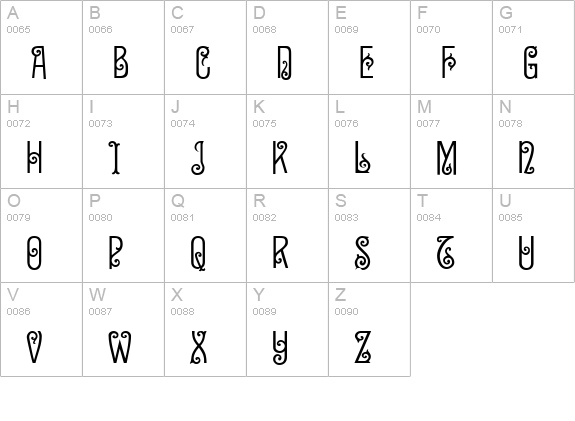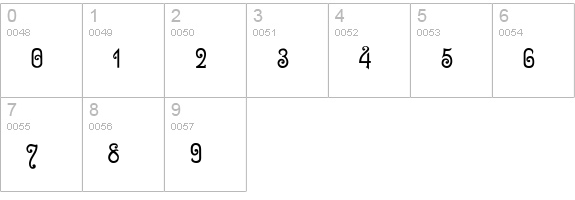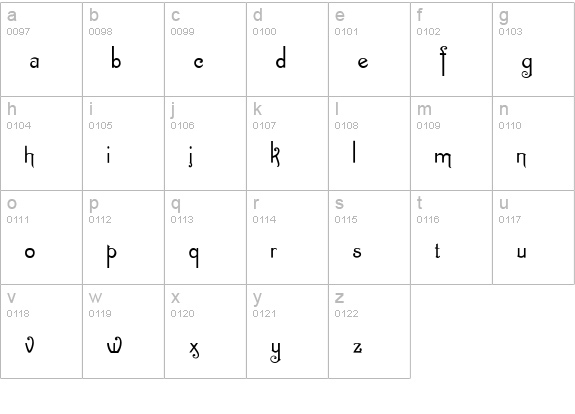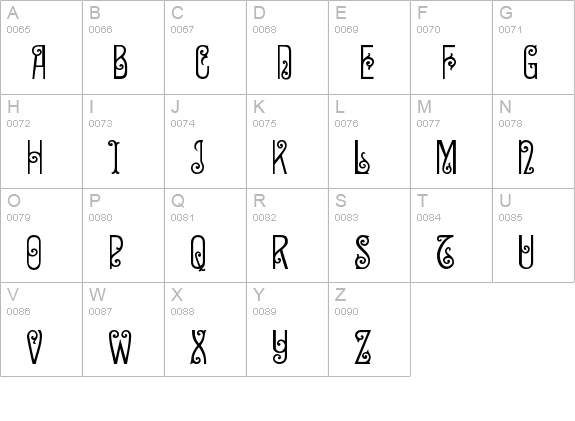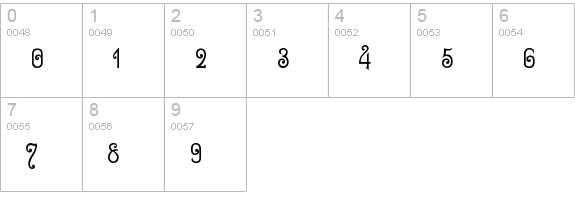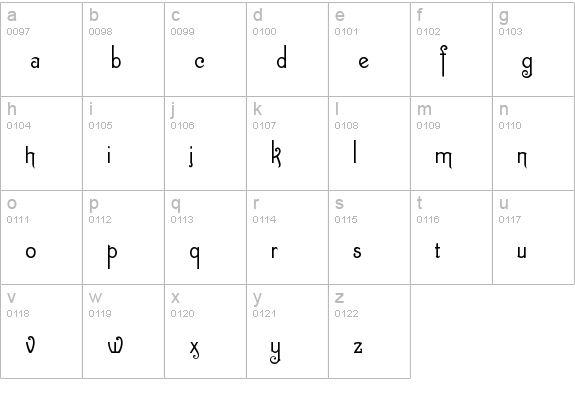
Sevilla Decor Font Details
Sevilla Decor font is a stunning and elegant typeface that exudes sophistication and charm. Its intricate details and delicate curves make it perfect for adding a touch of elegance to any design project. Whether you're creating wedding invitations, branding materials, or stylish logos, Sevilla Decor font will make your work stand out. This font features ornate and decorative elements that add a unique flair to your designs. Each letter is beautifully crafted with flourishes and swashes, creating a luxurious and refined look. The tall and elongated letterforms give Sevilla Decor font a regal and timeless feel, making it perfect for projects that require a touch of grandeur. One of the best things about Sevilla Decor font is that it is available for free download at FontsMarket.com. This means that you can easily access this exquisite font and use it in your projects without any cost. Its availability on FontsMarket.com ensures that you can easily incorporate this font into your design arsenal and elevate your creative endeavors. With its versatility and elegance, Sevilla Decor font is a must-have for any designer or creative professional. Its free availability makes it even more appealing, allowing you to enhance your projects without breaking the bank. So why wait? Download Sevilla Decor font from FontsMarket.com today and take your designs to the next level.